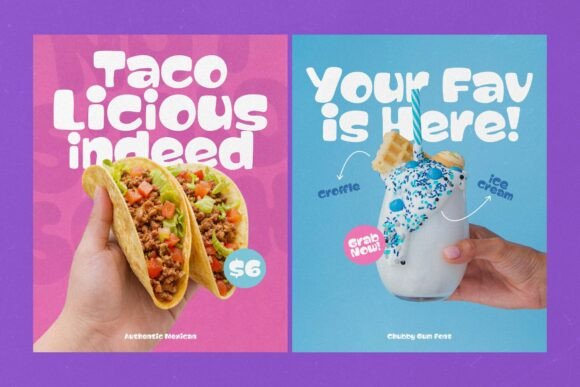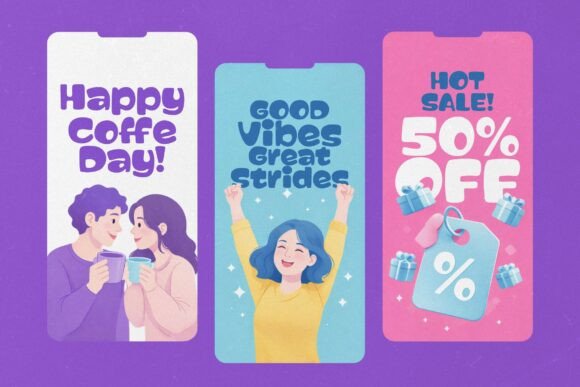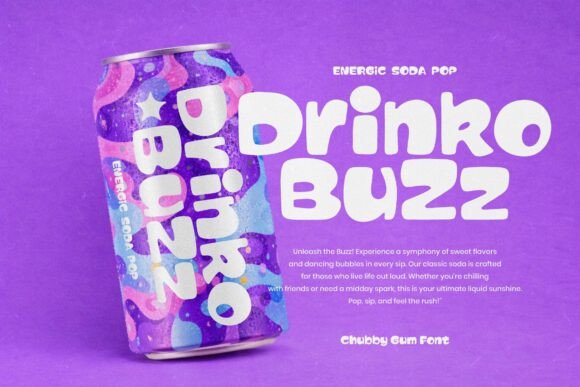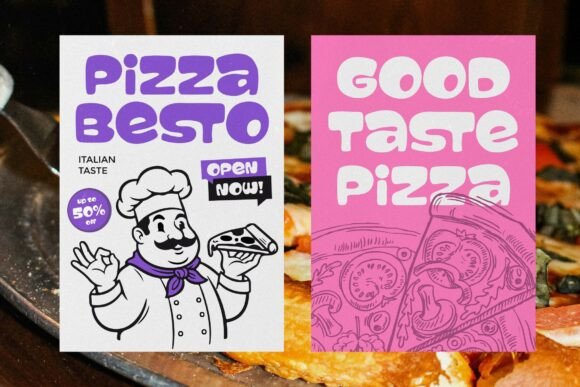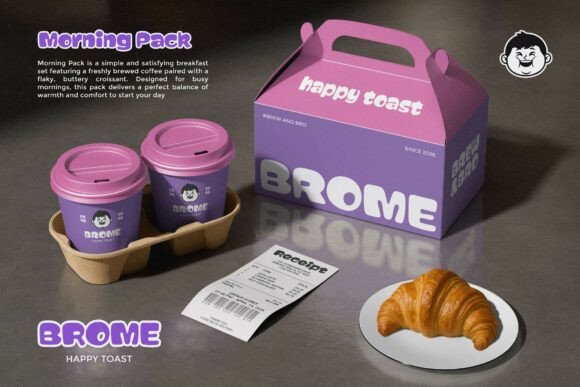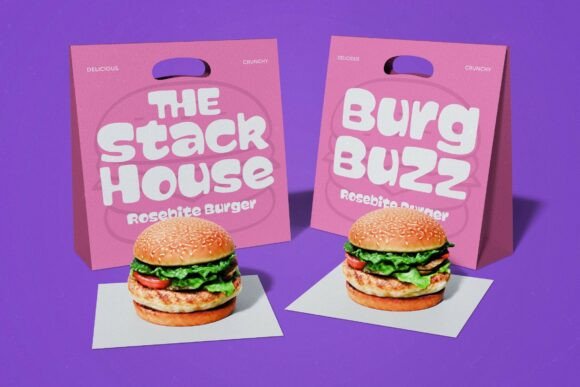
Introducing Chubby Gum Font: The Playful and Chunky Display Font You Need
Are you tired of using the same old fonts in your designs? Do you want to add a touch of fun and personality to your branding, packaging, or social media visuals? Look no further than Chubby Gum Font, a playful, chunky, and bold display font that’s inspired by the chewy bubble gum shapes and soft, bubbly letterforms we all love.
A Font that’s Fun, Friendly, and Expressive
Chubby Gum Font is designed to bring instant joy and personality to any design. Its rounded sans-serif structure and thick, gum-like forms make it perfect for food branding, candy packaging, kid-friendly visuals, playful logos, posters, and social media designs. This font is all about having fun and making a statement, and it’s sure to grab attention and leave a lasting impression.
Balancing Fun and Modern Aesthetics
One of the best things about Chubby Gum Font is that it balances fun and modern aesthetics without feeling childish. This makes it suitable for both youthful and lifestyle-oriented brands who want to add a touch of playfulness to their designs without sacrificing sophistication. Whether you’re designing for a kids’ brand or a lifestyle brand, Chubby Gum Font is the perfect choice.
Key Features of Chubby Gum Font
- Playful and Chunky Design: Chubby Gum Font features a playful, chunky, and bold design that’s perfect for making a statement.
- Rounded Sans-Serif Structure: The font’s rounded sans-serif structure gives it a friendly and approachable feel.
- PUA Encoding: Chubby Gum Font supports PUA encoding, providing seamless access to its full library of stylistic features.
- Instant Joy and Personality: This font is designed to bring instant joy and personality to any design.
Chubby Gum Font is versatile and can be used for a variety of design projects, including:
- Food Branding: Add a touch of fun and playfulness to your food branding with Chubby Gum Font.
- Candy Packaging: Make your candy packaging stand out with this bold and playful font.
- Kid-Friendly Visuals: Chubby Gum Font is perfect for kid-friendly visuals, such as children’s books, games, and websites.
- Playful Logos: Create a playful and memorable logo with Chubby Gum Font.
- Posters and Social Media Designs: Use Chubby Gum Font to add a touch of fun and personality to your posters and social media designs.
Why Choose Chubby Gum Font?
If you’re looking for a display font that feels chunky, bubbly, and irresistibly fun, Chubby Gum Font is the perfect choice. Here are just a few reasons why:
- Unique and Eye-Catching: Chubby Gum Font is a unique and eye-catching font that’s sure to grab attention.
- Versatile: This font is versatile and can be used for a variety of design projects.
- Easy to Use: Chubby Gum Font supports PUA encoding, making it easy to access its full library of stylistic features.
- Fun and Friendly: This font is designed to be fun and friendly, making it perfect for brands who want to add a touch of playfulness to their designs.
In conclusion, Chubby Gum Font is a playful, chunky, and bold display font that’s perfect for designers and crafters who want to add a touch of fun and personality to their designs. With its rounded sans-serif structure, thick gum-like forms, and PUA encoding, this font is sure to bring instant joy and personality to any design. Whether you’re designing for a kids’ brand or a lifestyle brand, Chubby Gum Font is the perfect choice. So why wait? Try Chubby Gum Font today and make your designs pop!